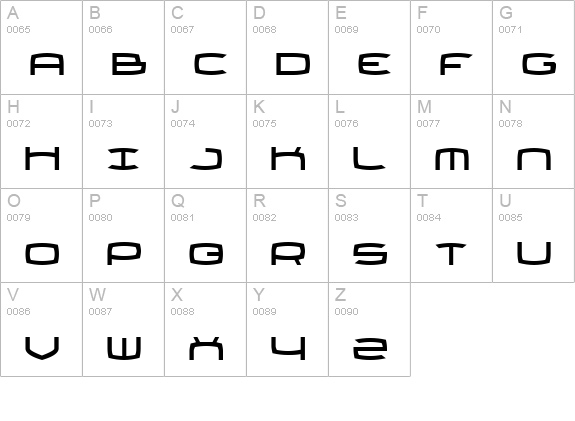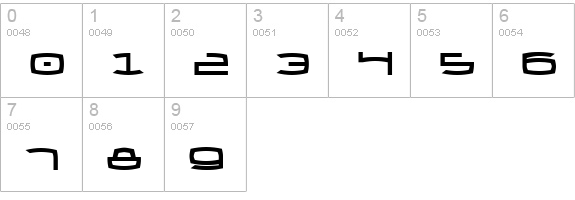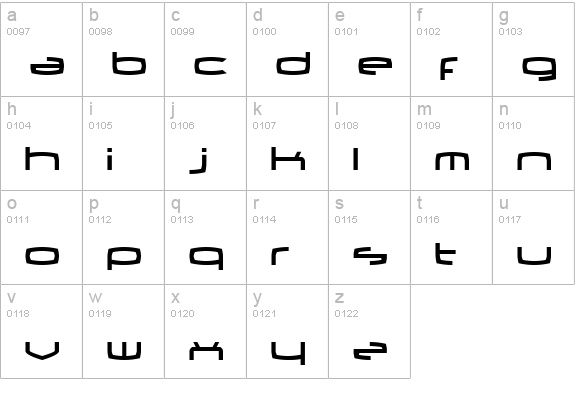
Introducing Thundergod II, a powerful and bold font that exudes strength and electrifying energy. This font is the perfect choice for those seeking to make a bold statement and leave a lasting impression. With its sharp edges and strong, commanding presence, Thundergod II is designed to catch the eye and captivate the viewer. Its unique letterforms are meticulously crafted to embody the essence of power, creating a visually stunning display. But what truly sets Thundergod II apart is its availability for free download. That's right, this incredible font is freely available to download at FontsMarket.com, making it accessible to anyone in need of a font that demands attention. Whether you're a graphic designer looking to create eye-catching advertisements or a content creator searching for a font that stands out, Thundergod II is the perfect choice. Don't miss out on this incredible opportunity to add Thundergod II to your font collection. Download it for free at FontsMarket.com and unleash the power of Thundergod II in your designs. With its striking appearance and versatile usage, Thundergod II is sure to become your go-to font for making a statement and leaving a lasting impact.